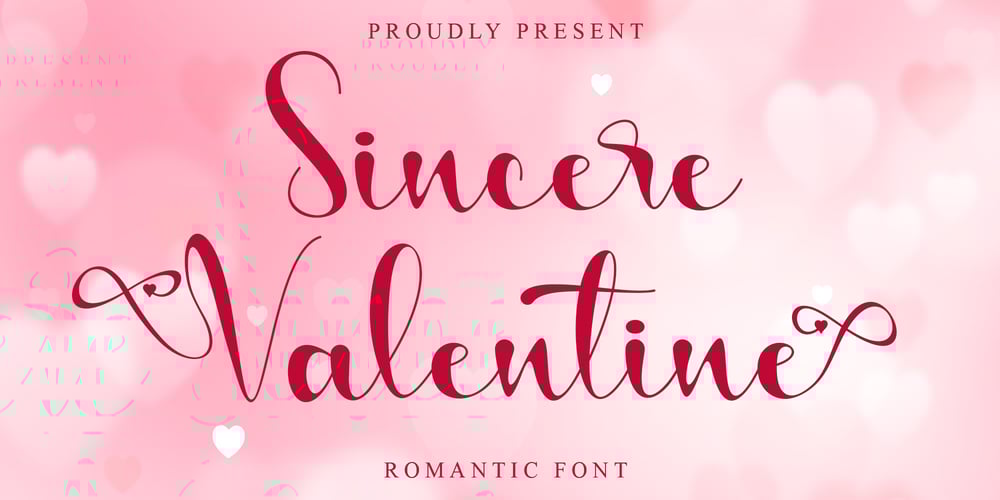
Sincere Valentine Font Family was designed by Harjuno Kristanto and published by Arkrist Letter. Sincere Valentine contains 1 styles and family package options. Sincere Valentine is a modern handwritten font made with sincerity and care to produce a font filled with love.Celebrate Valentine’s Day with Sincere Valentine, and make your day full of love with your loved ones!This font is PUA encoded, which means you can access all of the glyphs and swashes with ease!